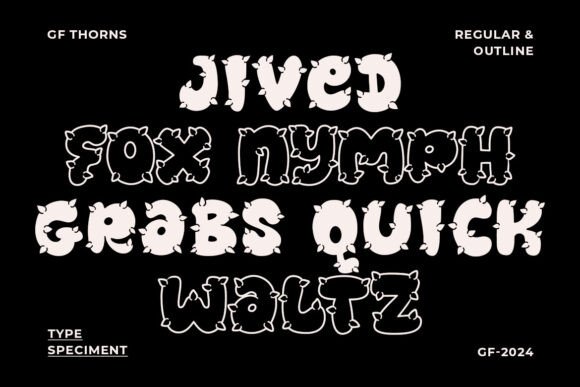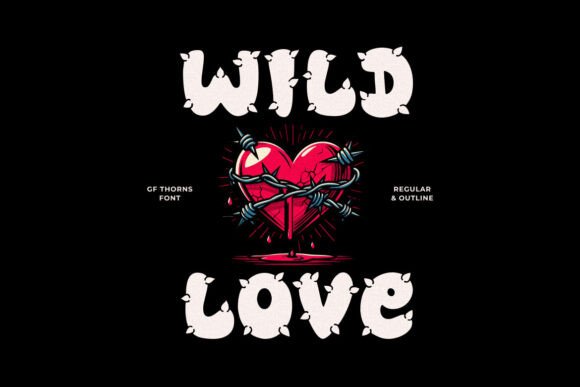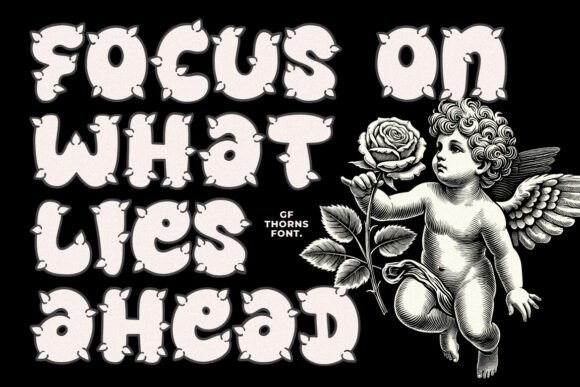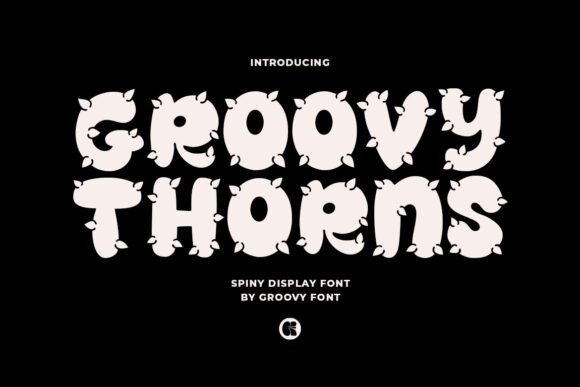
Introduction to Groovy Thorns Font
Groovy Thorns font is a unique and edgy display font that features intricate designs inspired by the thorny branches of a rose.
This font’s spiny and ornate details add a touch of sophistication and drama to any text it is applied to With two styles available – regular and outline – Groovy Thorns provides flexibility in creating different text effects and layouts.
Key Features of Groovy Thorns Font
Why Choose Groovy Thorns Font?